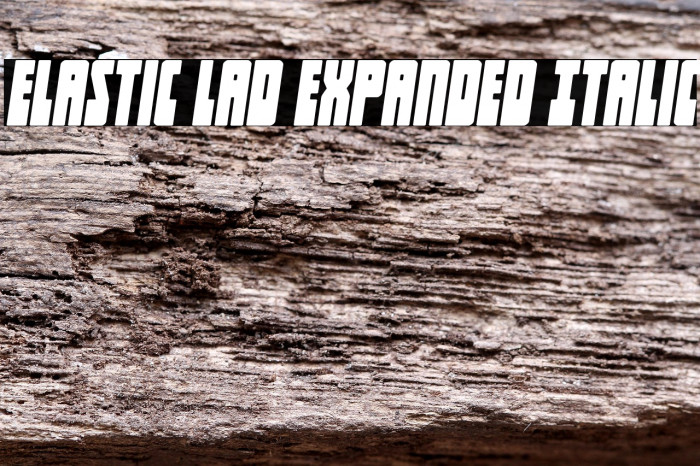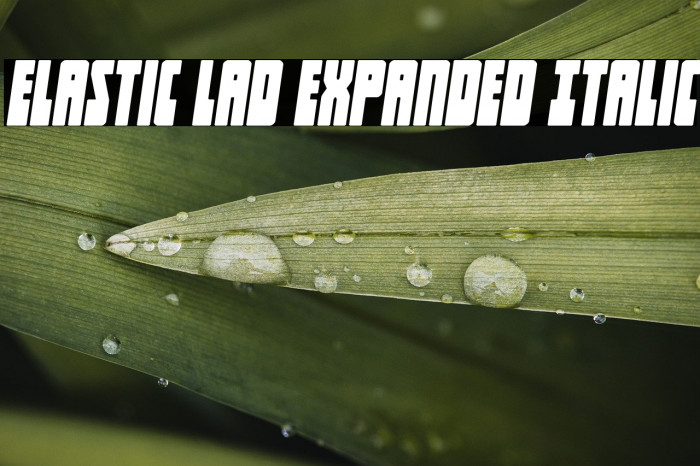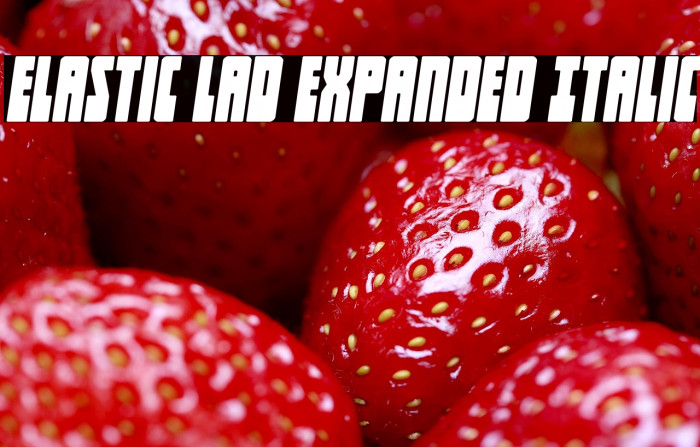
Elastic Lad Expanded Italic Font
Elastic Lad Expanded Italic Description
This font features a bold and dynamic design with an expanded and italicized style. The characters are heavily weighted, giving them a strong presence, while the italic slant adds a sense of motion and energy. The expanded width of the letters enhances readability and makes a striking visual impact. The font's geometric shapes and sharp angles contribute to a modern and futuristic appearance. It is well-suited for attention-grabbing headlines and display purposes, where a bold statement is desired.
| Proposed Projects | Ideal for use in advertising, posters, branding, and any project requiring a bold and modern typeface. |